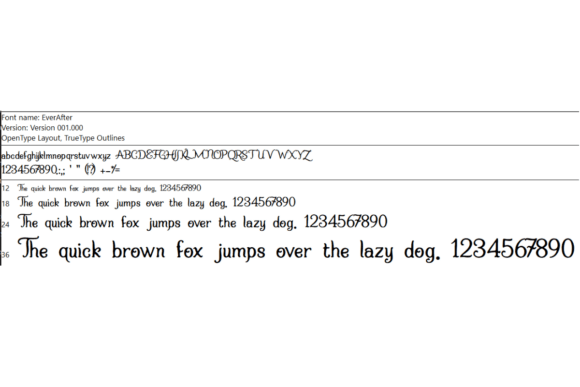
Discover the Whimsical Charm of Ever After Font
Have you ever been working on a design project, and suddenly, you’re stuck on finding the perfect font? I recall a recent experience where I was tasked with creating a fantasy book cover, and I spent hours scouring through font libraries, trying to find something that captured the essence of magic and wonder. That’s when I stumbled upon Ever After, a beautifully crafted font that instantly transported me to a world of enchantment.
A Personal Review of Ever After Font
As a designer, I’m always on the lookout for fonts that can add a touch of personality to my projects. Ever After is a whimsical serif font that has quickly become one of my favorites. Here’s what I love about it:
• Storybook charm: Ever After has a unique, storybook-like quality that makes it perfect for fantasy book covers, children’s stories, and romantic projects.
• Elegant curly terminals: The font features beautiful, curly terminals that add a touch of elegance and sophistication.
• Fairy-tale flourishes: Ever After is packed with fairy-tale flourishes that can be used to add a touch of magic to your designs.
While Ever After is an amazing font, there are a few quirks to be aware of:
• ⚠️ Limited use in body text: Due to its ornate nature, Ever After may not be the best choice for body text. It’s better suited for headings and titles.
• 🤔 Glyph compatibility: Some glyphs may not work seamlessly with all design software or platforms.
The Backstory of Ever After Font
Ever After was designed by a team of talented typographers who wanted to create a font that captured the essence of fantasy and wonder. Inspired by classic fairytales and storybooks, they crafted a font that’s both elegant and whimsical. The result is a font that’s perfect for designers, crafters, and creative hobbyists who want to add a touch of magic to their projects.
What is Ever After font best suited for? Ever After is ideal for fantasy book covers, children’s stories, romantic projects, and enchanted branding.
Can I use Ever After for body text? While Ever After is a beautiful font, it’s better suited for headings and titles. For body text, consider using a clearer, more legible font.
Ever After is a beautifully crafted font that’s sure to add a touch of magic to your designs. With its whimsical charm and elegant features, it’s the perfect choice for designers, crafters, and creative hobbyists who want to create enchanting projects. So why not give Ever After a try and see how it can transform your designs?